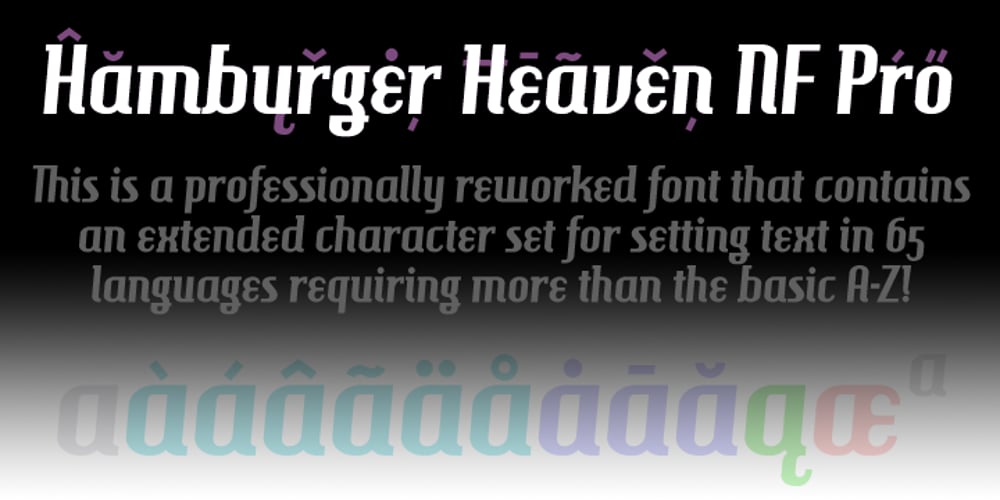
Hamburger Heaven NF Pro
Hamburger Heaven NF Pro font
Hamburger Heaven NF Pro Font Family was designed by Nick Curtis, Roger S. Nelsson and published by CheapProFonts. Hamburger Heaven NF Pro contains 1 styles and family package options. A stylish retro script where I have completely redone the spacing to make the text look more even. All of the diacritics have been redone, too – and the character set expanded in our usual fashion. So now this little gem from Nick Curtis is ready for the big time! Nick Curtis says: “This font is basically a design exercise, influenced by a number of contemporary fonts, but unique in its own way. The gentle, fluid motion reminded me of diner lettering from the 30s and 40s, hence the name.” ALL fonts from CheapProFonts have very extensive language support: They contain some unusual diacritic letters (some of which are contained in the Latin Extended-B Unicode block) supporting: Cornish, Filipino (Tagalog), Guarani, Luxembourgian, Malagasy, Romanian, Ulithian and Welsh. They also contain all glyphs in the Latin Extended-A Unicode block (which among others cover the Central European and Baltic areas) supporting: Afrikaans, Belarusian (Lacinka), Bosnian, Catalan, Chichewa, Croatian, Czech, Dutch, Esperanto, Greenlandic, Hungarian, Kashubian, Kurdish (Kurmanji), Latvian, Lithuanian, Maltese, Maori, Polish, Saami (Inari), Saami (North), Serbian (latin), Slovak(ian), Slovene, Sorbian (Lower), Sorbian (Upper), Turkish and Turkmen. And they of course contain all the usual “western” glyphs supporting: Albanian, Basque, Breton, Chamorro, Danish, Estonian, Faroese, Finnish, French, Frisian, Galican, German, Icelandic, Indonesian, Irish (Gaelic), Italian, Northern Sotho, Norwegian, Occitan, Portuguese, Rhaeto-Romance, Sami (Lule), Sami (South), Scots (Gaelic), Spanish, Swedish, Tswana, Walloon and Yapese.